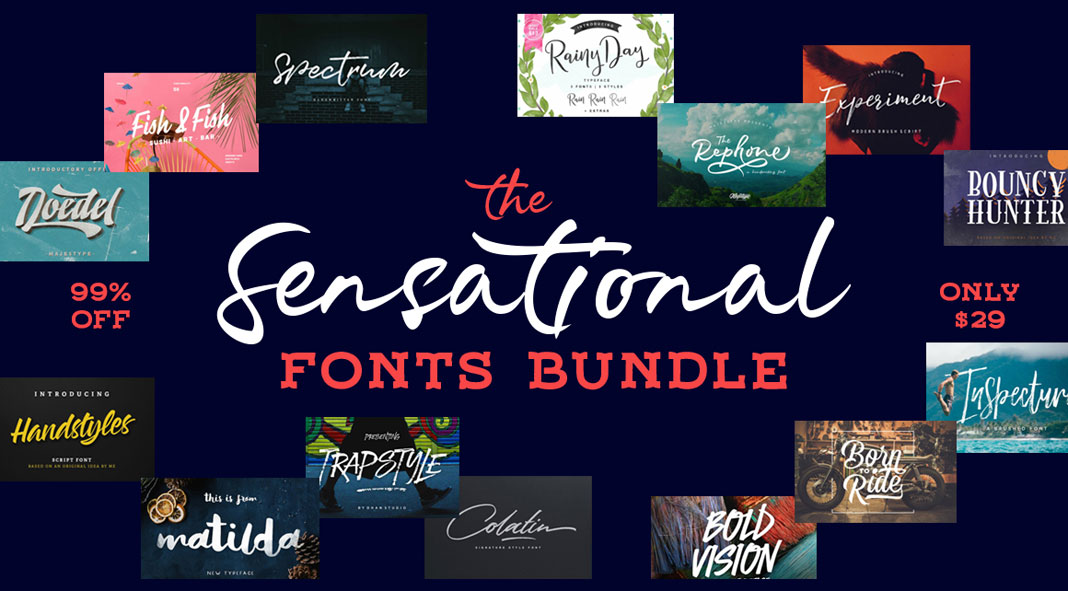
The friendly team of Pixelo has put together this amazing font bundle. The handpicked collection consists of 33 outstanding typefaces comprising a variety of scripts, handwritten, and display fonts. Some of the included typefaces come with lots of alternate characters, while others include different styles and weights. Because of the wide variety of different fonts, this huge collection is well suited for various applications such as poster designs, striking headlines, invitations, branding projects, greeting cards, social media images, just to name a few examples. The complete bundle is worth a value of $2150 but you can get it for only $29 (only for a very limited time) on Pixelo. For additional information on all included fonts, just follow the link below.